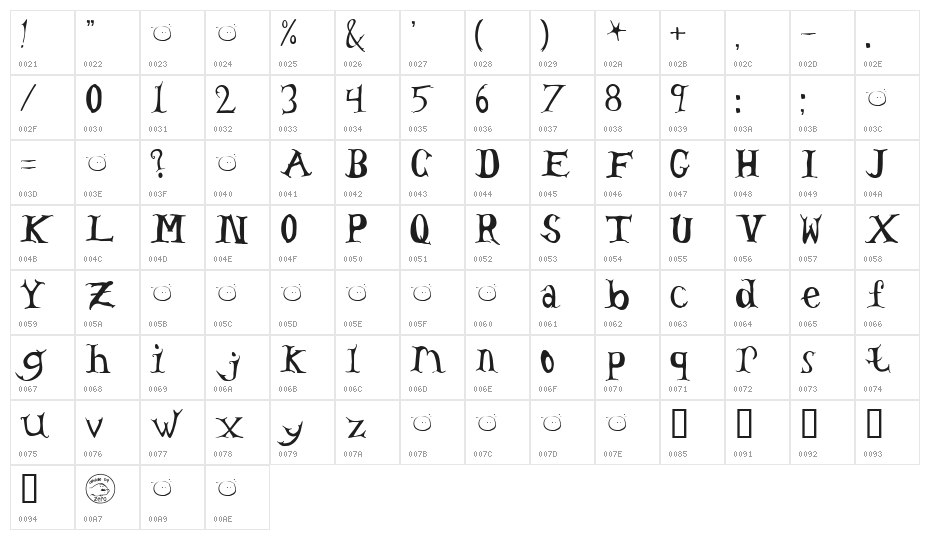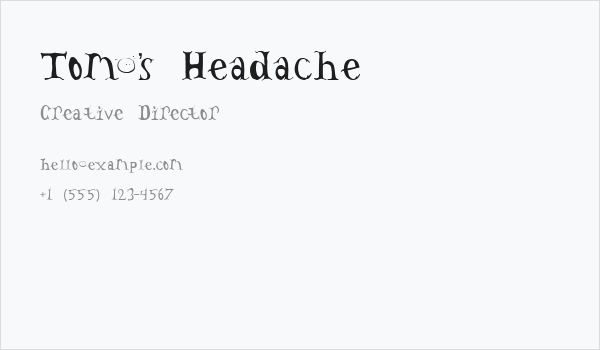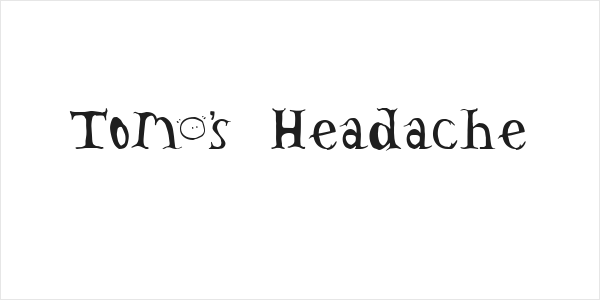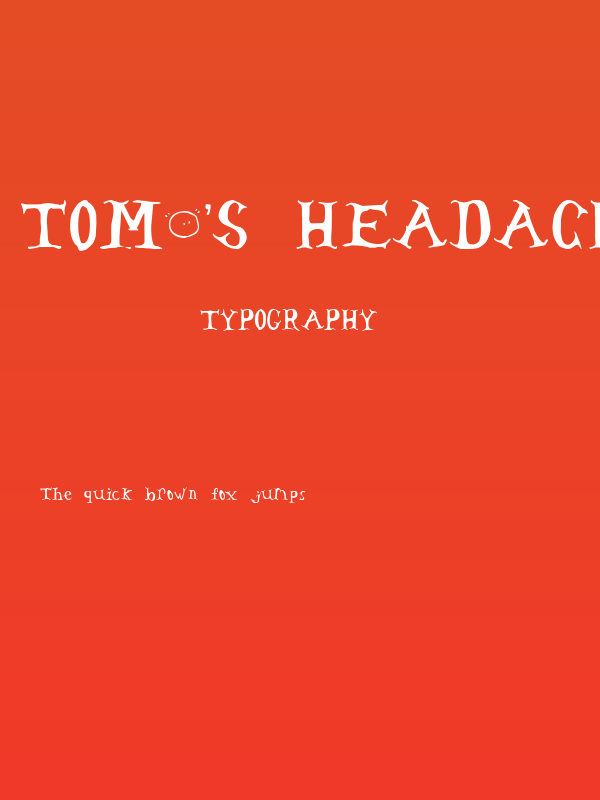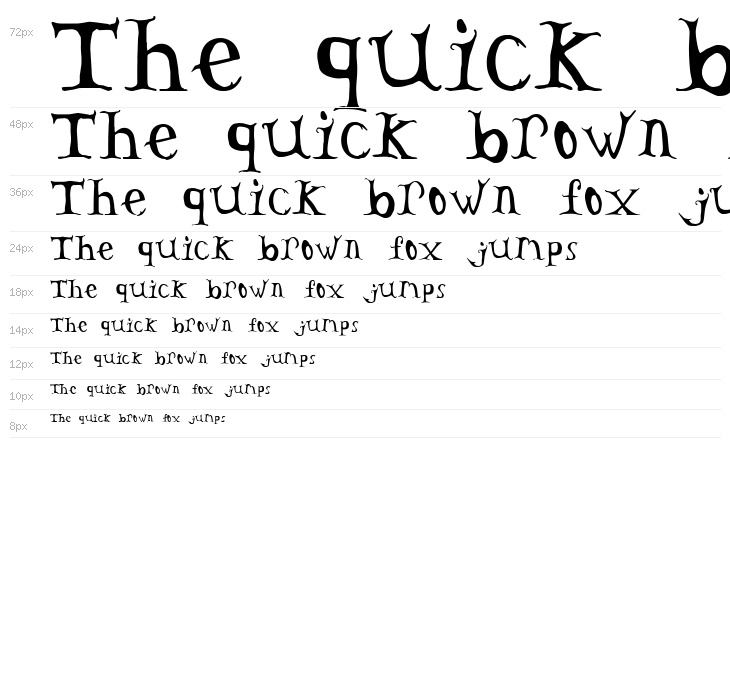
Tom's Headache Font
Tom's Headache Description
This font features a quirky and playful design with irregular, jagged edges that give it a hand-drawn appearance. The characters are bold and slightly distorted, creating a whimsical and dynamic look. The uppercase letters have a unique flair with exaggerated serifs, while the lowercase letters maintain a consistent style with a touch of unpredictability. Numbers and special characters follow the same playful theme, making this font ideal for creative and informal projects.
| Overall Style | Whimsical |
| Proposed Projects | Perfect for children's books, comic strips, playful branding, and creative posters. |